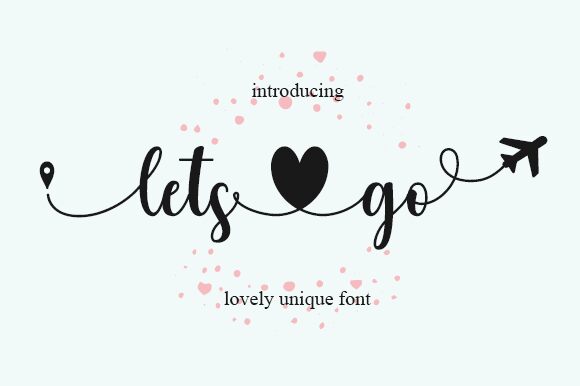
Letsgo, a captivating calligraphy font by Danar Nugroho, adds elegance and sophistication to any project. Its semi-condensed width allows for a sleek and modern appearance, making it ideal for website headers or banners.
With its graceful strokes and curvaceous letters, Letsgo is perfect for wedding invitations, greeting cards, or any design that requires a touch of refined beauty. Stand out from the crowd with this enchanting font that effortlessly combines artistry with functionality.